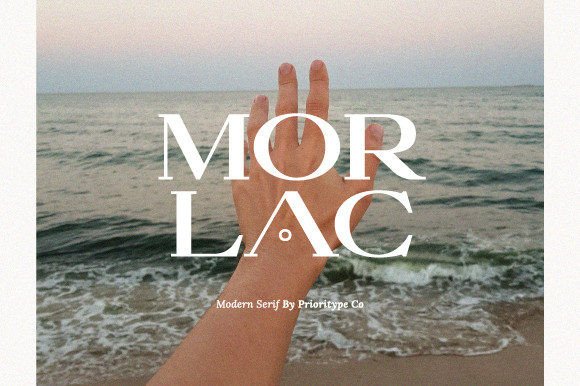
Welcome to the realm of sophistication and charm, where letters dance gracefully across your screen, captivating the eyes and stirring the soul. Morlac Font, a stunning modern serif creation by Prioritype, awaits your discovery. This font is not just a collection of characters; it's an artistic masterpiece that brings a touch of elegance and luxury to your creative endeavors.
Picture this: a wedding invitation adorned with Morlac's graceful curves, exuding an aura of timeless romance. Your guests will be entranced by the intricate details and harmonious flow of each letter, setting the tone for a truly memorable occasion. Or envision your brand logo adorned with Morlac's confident strokes, conveying a sense of stability and sophistication that will leave a lasting impression on your clients.
Morlac's versatility extends beyond the traditional realm of branding and logos. Its timeless charm shines through in headlines, posters, and even social media posts, adding a touch of class and distinction to your online presence. The font's inherent beauty elevates ordinary text into captivating works of art, ensuring that your message stands out from the digital clutter.
But Morlac's allure goes beyond its aesthetic appeal. Its carefully crafted letterforms provide exceptional legibility, ensuring that your words are not just seen, but understood and absorbed. The font's clean lines and distinct shapes guide the reader's eye effortlessly across the page, creating a seamless and enjoyable reading experience.
Whether you're a seasoned designer or a creative enthusiast, Morlac Font is your gateway to a world of refined typography. Its versatility, luxury, and elegance are the perfect companions for your artistic journey. So, embrace the beauty of Morlac and let your words dance with grace and sophistication.